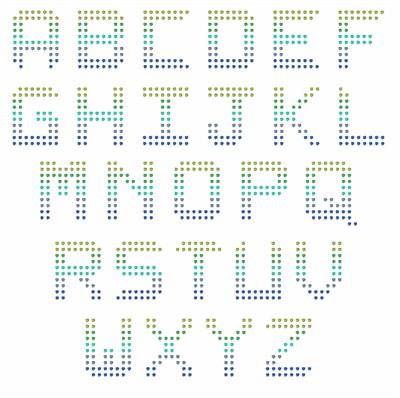
Embroidery Patterns is happy to present Dotted Monogram Embrilliance Embroidery Font - Dotted Style Monogram Lettering - BX font machine embroidery font which has Dotted monogram embroidery font displays bold, capitalized letters made of individual dots, ideal for personalizing items like tote bags. Compatible with Embrilliance software, offered in BX font format. included. If you would like to view more embroidery fonts and alphabets please search our embroidery fonts page.
Dotted Monogram Embrilliance Embroidery Font - Dotted Style Monogram Lettering - BX font